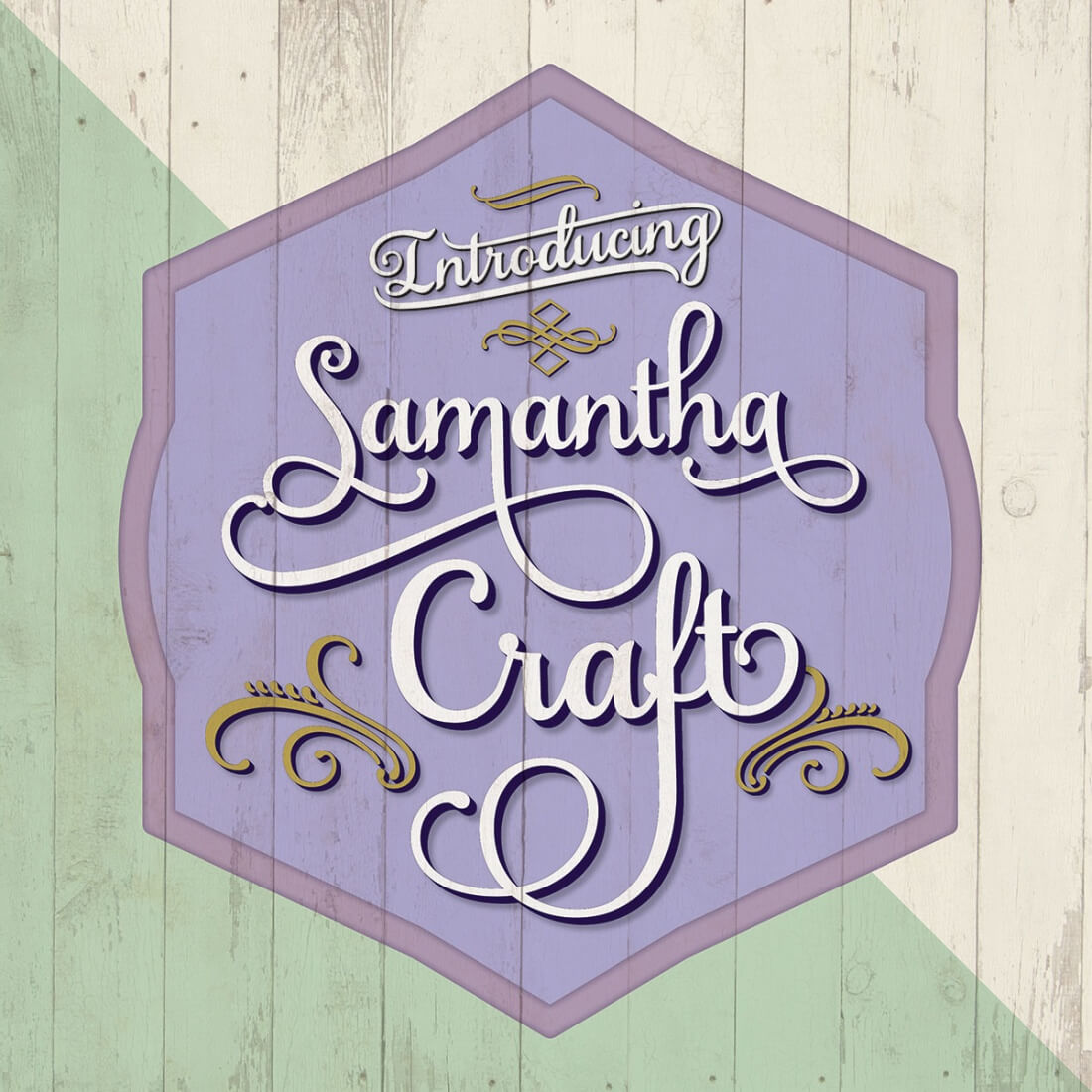
Samantha is carefully handwritten and inked to achieve that calligraphy style you are looking for.
Beautiful samantha script font. The samantha font is one of the best script fonts as well as being one of the most expensive. Samantha by uloel design. The style of a feminine project will be much classy than. Royalty free you can use samantha script on any of your personal projects as well as commercial purposes such as on t shirts posters websites or logos.
Free oh samantha script font. Her fantastic work on this elegant and beautiful typeface was a winning font for the 2012 communication arts award. It would be a perfect mate for branding logo wedding things greeting cards fashion and all those sweetest things on earth. Its not just us who think lauras samantha script font is out of this world.